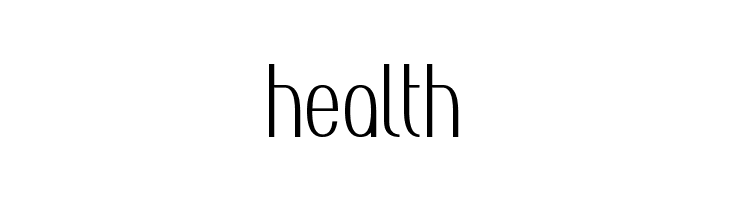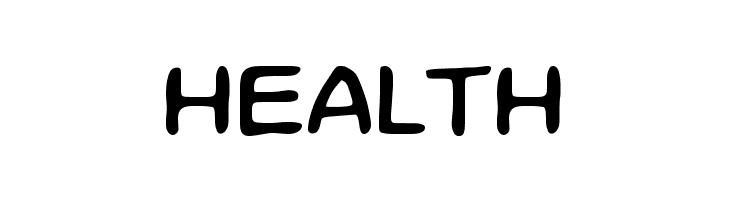
A playful, casual handwritten font with smooth curves and a personal touch.
A bold, geometric font with a retro 1980s style and three-dimensional effect.
A classic serif font with sharp serifs and moderate contrast, offering elegance and readability.
A modern, sleek font with elongated, narrow characters and a minimalist design.
A bold, textured, and slanted font with a hand-drawn appearance.
A playful, bold, and hand-drawn font with rounded edges.
A playful, bold font with a hand-drawn, rounded style.
A playful, rounded font with a casual, handwritten style.
A playful, hand-drawn font with intricate patterns and doodles.
An ornate and decorative blackletter-style font with intricate details.